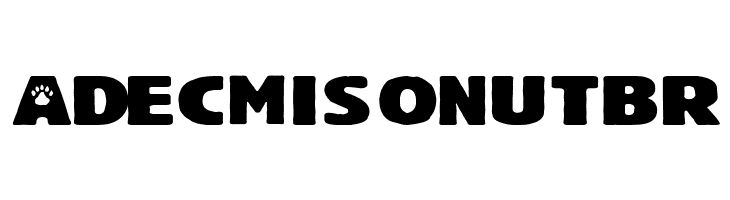
A tall, slender, and modern font with consistent stroke width.
A playful, handwritten font with a casual and informal style.
A playful, hand-drawn font with rounded edges and a friendly style.
A playful, handwritten font with rounded edges and a casual style.
A bold, geometric font with a modern, blocky style.
A playful, bubble-inspired decorative font with interconnected circular motifs.
A playful, casual handwritten font with smooth, flowing lines.
A playful, hand-drawn font with a textured, brush-like appearance.
A playful, illustrative set of beard-themed glyphs.
A bold, decorative font with intricate internal patterns and a three-dimensional outline.
A bold, playful font with a textured, fluffy appearance.
A bold, vintage-style font with thick, angular letters.
A bold, decorative font with sharp angles and intricate details.
A whimsical, decorative font with playful, abstract beard-faced characters.
A bold, brush-style font with dynamic and expressive strokes.
A bold, decorative font with intricate details and vintage flair.
A bold, decorative font with intricate detailing and vintage charm.
A whimsical, hand-drawn font with playful, artistic strokes.
An elegant, flowing script font with graceful curves and smooth lines.
An elegant, flowing script font with a natural handwriting style.
A playful, modern handwritten font with tall, narrow uppercase letters.
A delicate, flowing script font with elegant curves and interconnected letters.
A bold, playful font with a bear paw print in the 'A', perfect for fun and nature-themed designs.
A playful, bold font with rounded, thick strokes and a whimsical style.
An elegant script font with flowing, ornate cursive letters and high contrast strokes.
A bold, flowing script font with elegant curves and dynamic presence.
A bold, aggressive font with sharp, angular lines and pointed edges.
A bold, edgy font with sharp angles and a dynamic, rugged appearance.
A bold, jagged font with a dynamic and aggressive style.
A dynamic, angular font with sharp strokes and a sense of motion.
A bold, angular font with a futuristic and industrial feel.
A bold and expressive script font with dynamic, flowing letterforms.
A decorative font of playful symbols and animal silhouettes.
A bold, expressive brush script font with dynamic strokes and a hand-painted look.